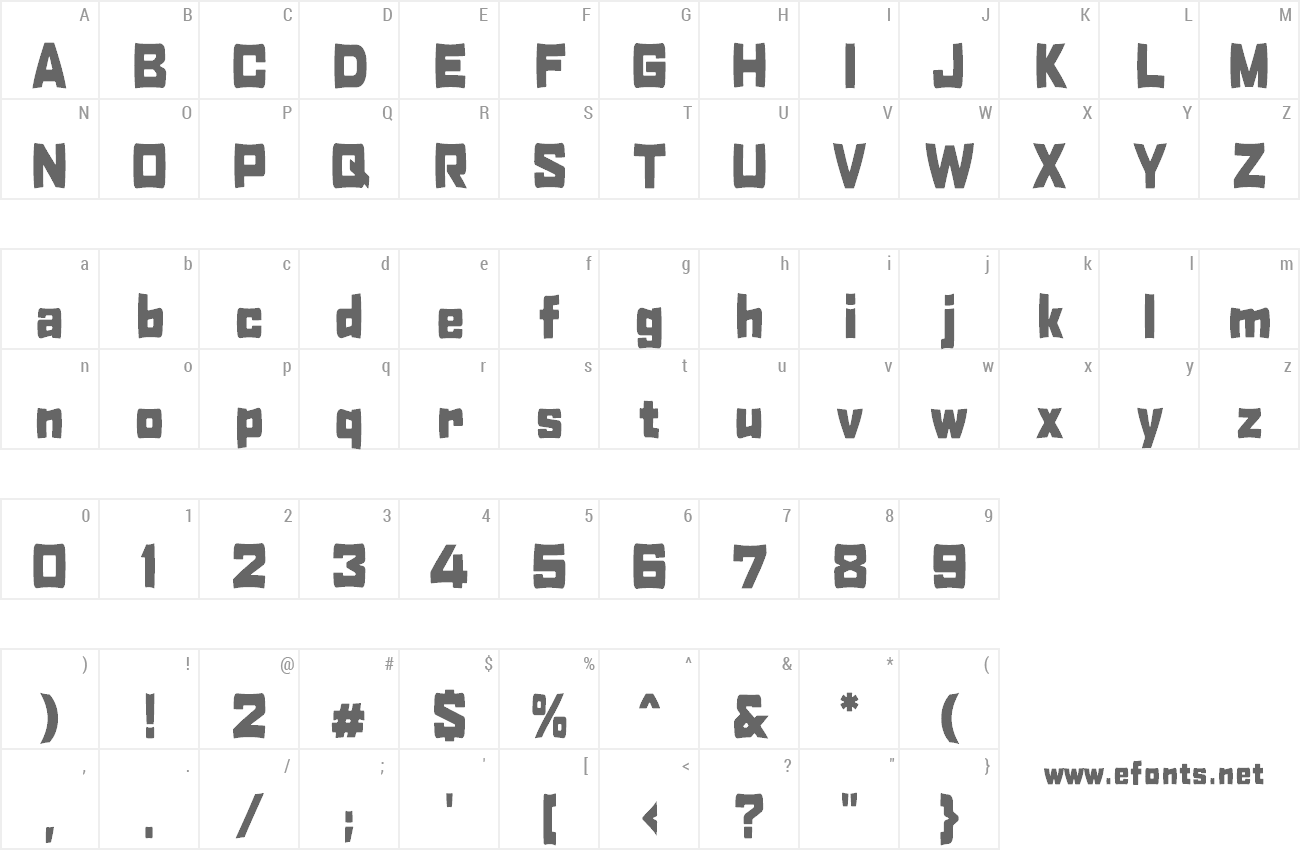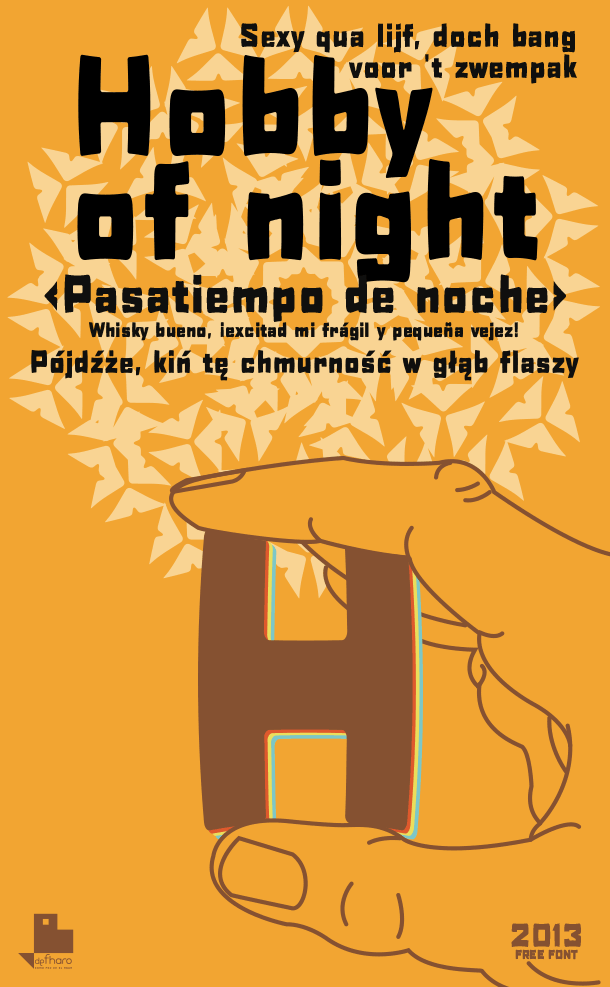
| Font name: | Hobby of night |
| Author: | deFharo |
| Note by deFharo | |
Hobby of night, is my first typography of 2013, is a font created with the silence of the night and the passion of an intoxicating entertainment as drawing and typography design. In honor of this hobby I put the name. This is a display font, thick, without serif and condensed, has all the Latin (369) and can be used for all European languages. With this you can compose typography posters, billboards or affiches and use it to design your brochures, flyers or publications, ideal for big titles and labels. The letter shapes inspired by the deformation of rubber letters when pressed by the thumb and index finger on the top and bottom creating a concave curve, and in turn, a convex curve on the sides. Thanks for supporting my work. Fernando Haro http://defharo.com/fonts/hobby-of-night/ |